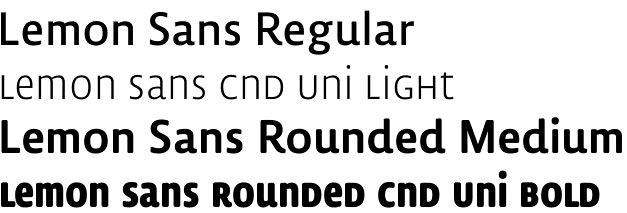
TD Lemon Sans
TD Lemon Sans is an extremely large sans serif family. It features 3 main styles – regular, condensed and unicase – each of them ranging in 6 weights from Thin to Bold plus corresponding true italics. Additionally you will find all these developed in rounded version reaching the total of 60 fonts inside the family. 60 means a lot but in this particular case it means two major things – first is the great style diversity and complexity, and second is almost limitless choice and variation in contrast. TD Lemon Sans will meet all your needs for texts and display, be it large columns or strong headlines or signboards. Due to its clear geometry and finely tuned contrast, it will also serve you well for web sites, apps, eBooks and any other screen use.
TD Lemon Sans is not just an ordinary sans serif face dominated by simple geometry – it is a sans with elegant humanist style skillfully harmonized with the enhanced legibility of every character. Original and identical, apart from it’s main target – the editorial design – it is a perfect choice for poster design, food labels, DVD covers, UI & UX designs as well as brochures, leaflets, signboards and many other.
TD Lemon Sans is designed by Jürgen Huber and published by Type Department in 2014.